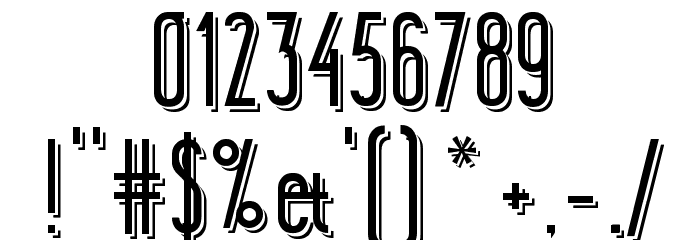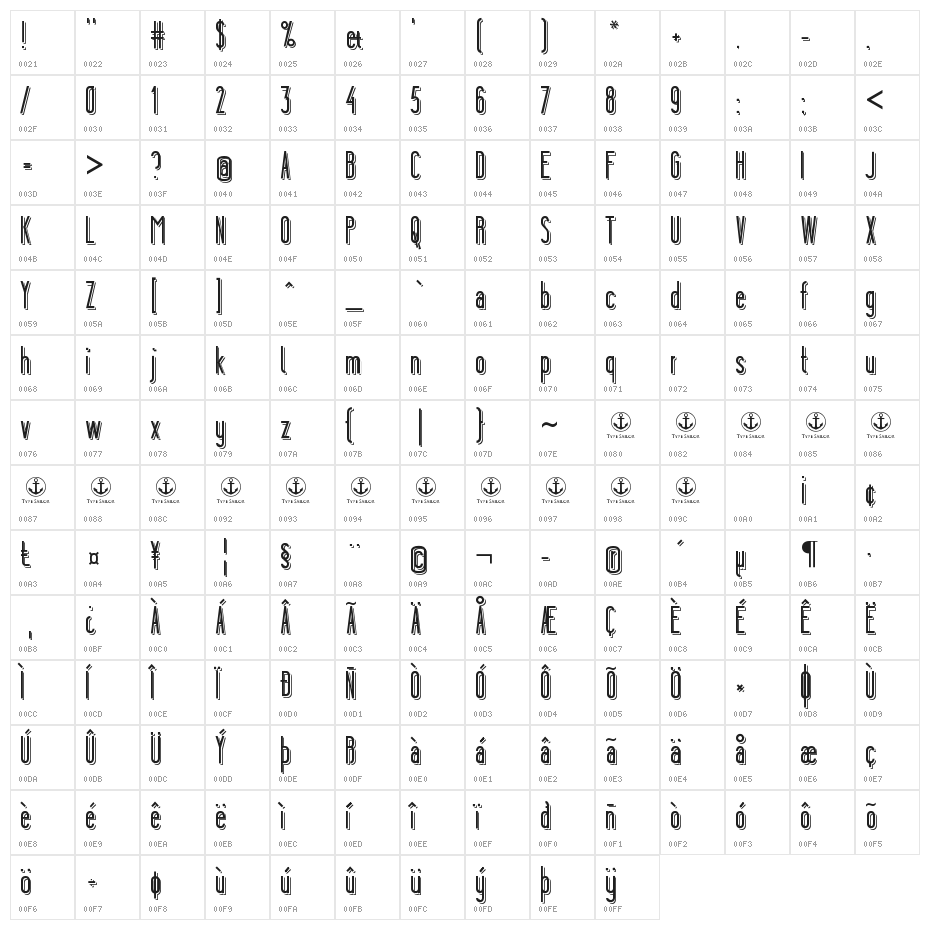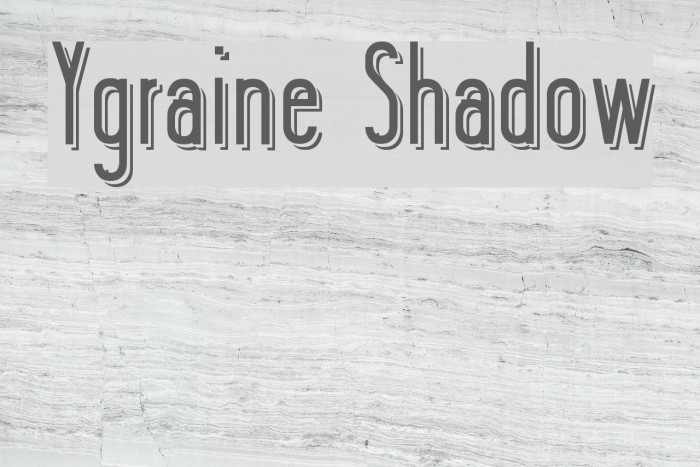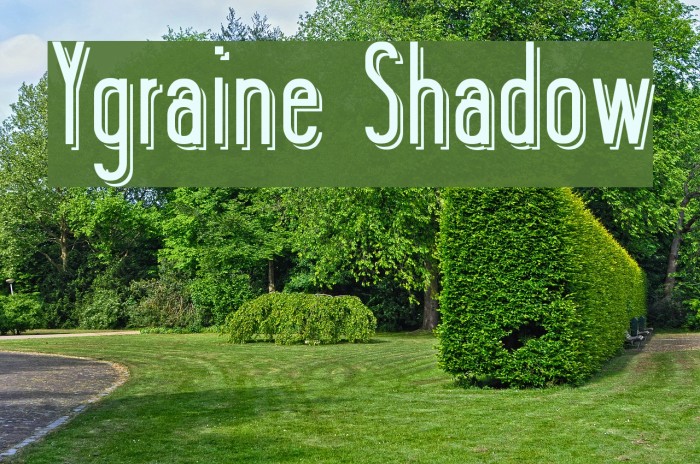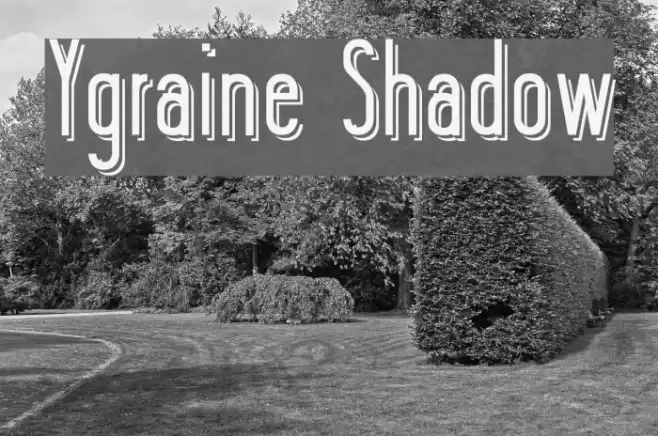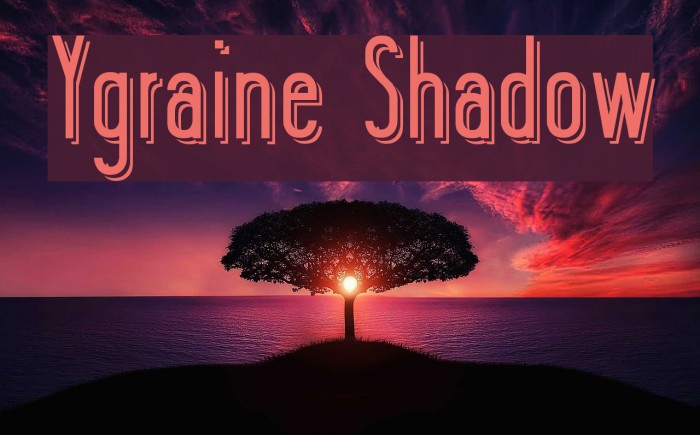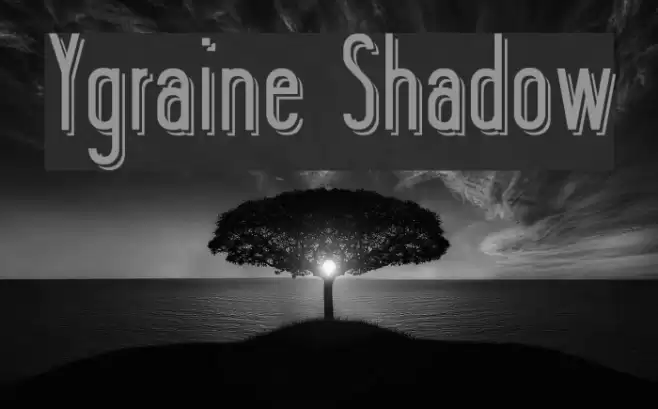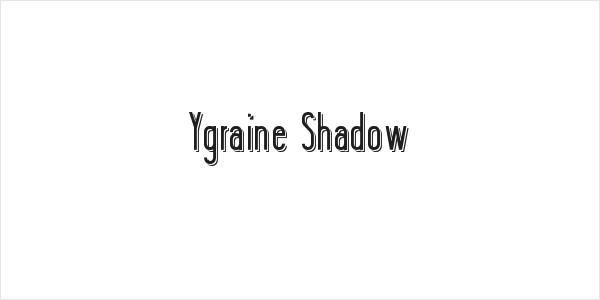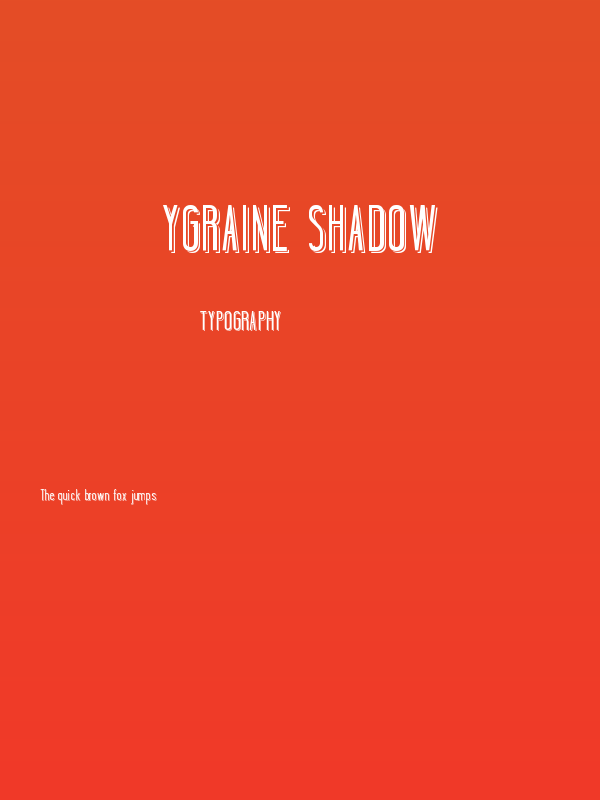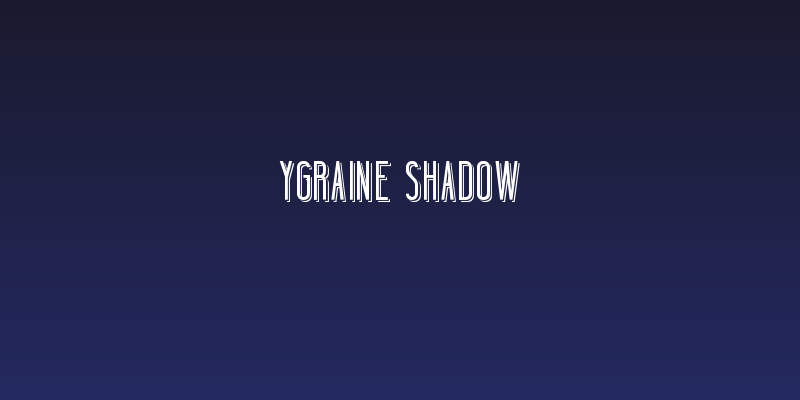
Ygraine Shadow Font
Ygraine Shadow Description
This font features a unique shadow effect that gives it a three-dimensional appearance. The characters are tall and narrow, with a distinct outline that adds depth. The uppercase and lowercase letters maintain a consistent style, with clean lines and a modern aesthetic. The numbers and special characters are designed to match the overall look, providing a cohesive appearance across all glyphs. This font is ideal for creating eye-catching headlines or titles that need a touch of sophistication and style.
| Proposed Projects | Ideal for posters, headlines, branding, and any design project that requires a striking and modern typeface. |